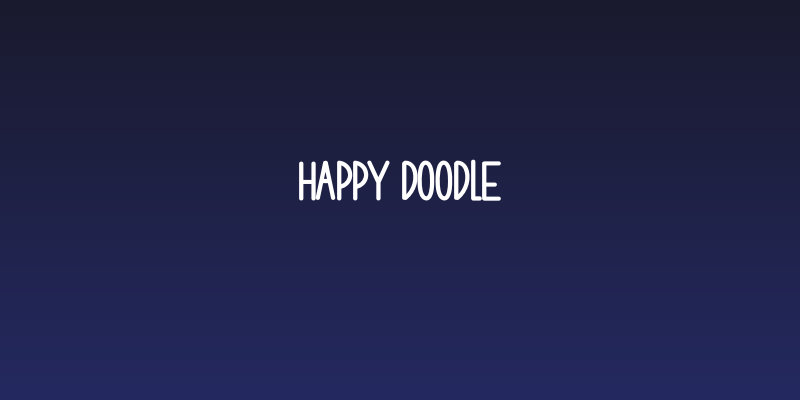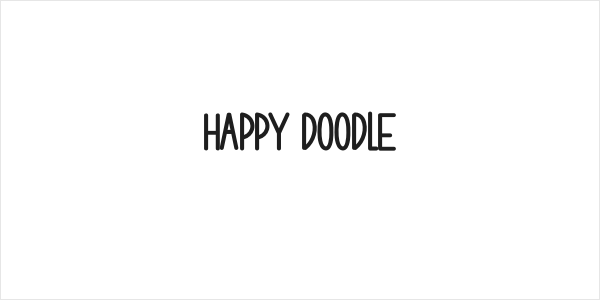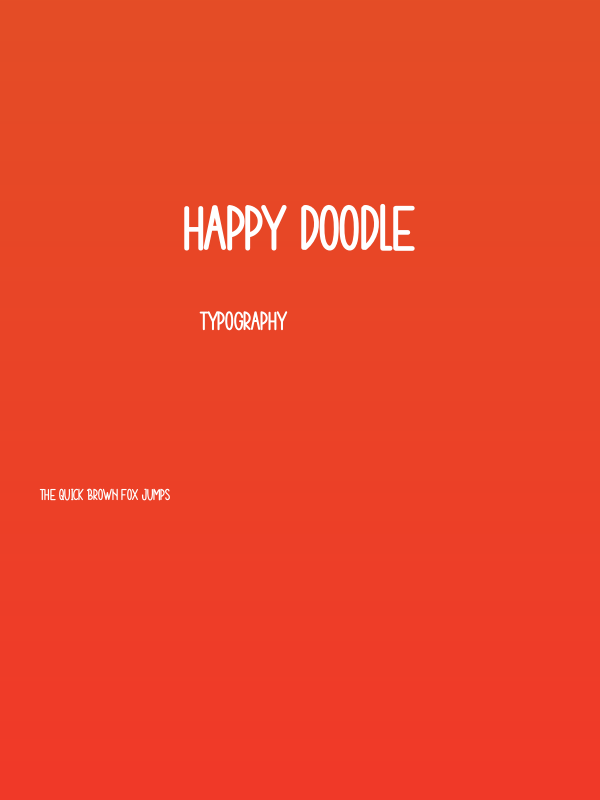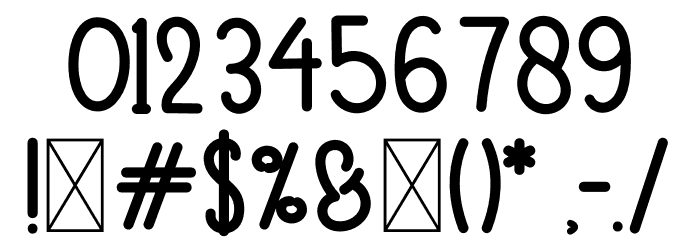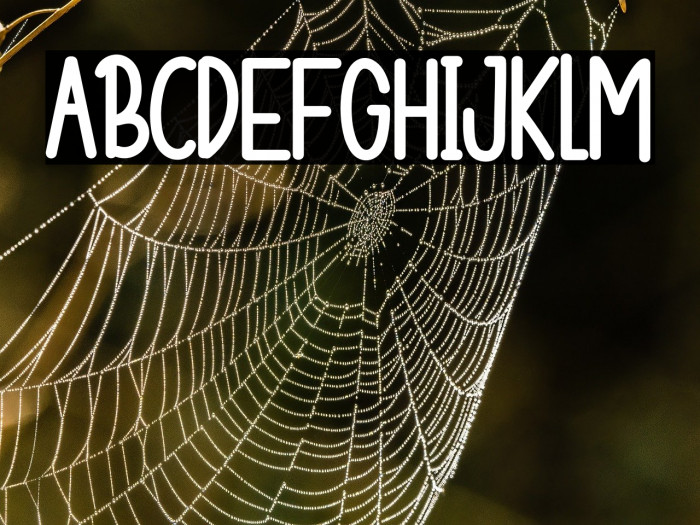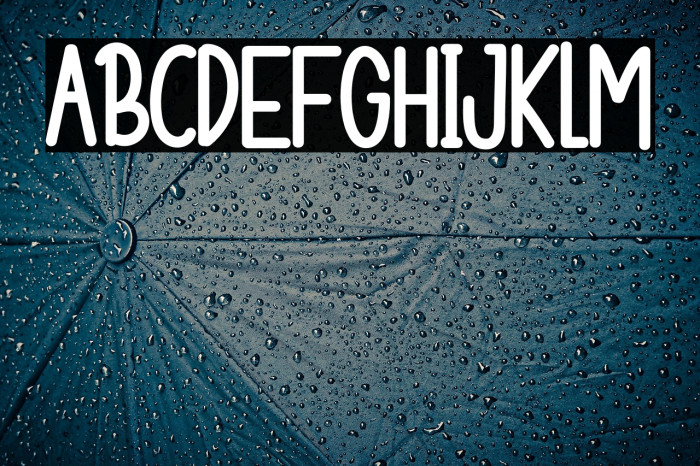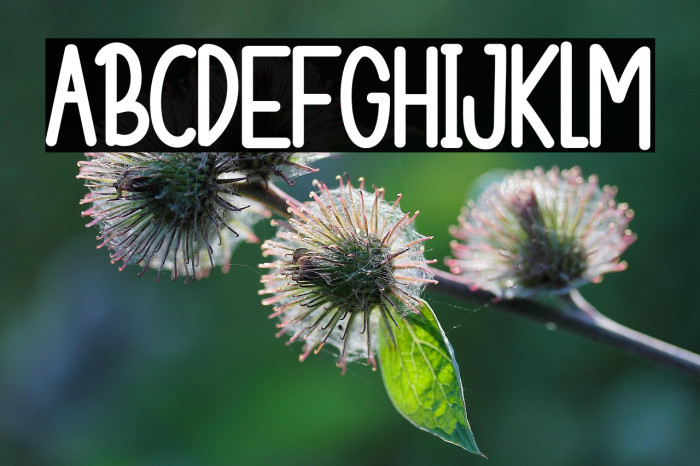
HAPPY DOODLE Font
HAPPY DOODLE Description
This playful and whimsical font features rounded, smooth edges and a consistent stroke width, giving it a friendly and approachable appearance. The characters are evenly spaced, with a slightly condensed width that maintains readability while adding a touch of fun. The font includes both uppercase and lowercase letters, numerals, and a variety of special characters, making it versatile for different design needs. Its clean lines and lack of serifs contribute to a modern and casual style, suitable for projects that require a lighthearted and informal tone.
| Overall Style | Playful, Modern |
| Proposed Projects | Ideal for children's books, playful branding, greeting cards, and casual social media graphics. |